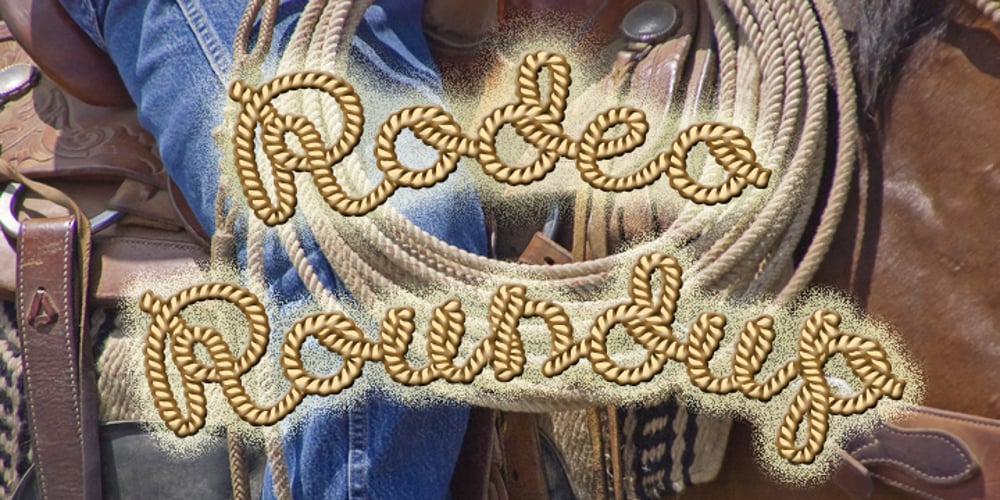
Rodeo Roundup Font Family was designed by published by FontMesa. Rodeo Roundup contains 2 styles and family package options. Four years in the making Rodeo Roundup is a very ornate script font where the letters look like a flowing rope with connecting lowercase letters. Due to the high amount of detail in this and other FontMesa fonts some applications may have difficulty displaying the letters larger than 100 point size.